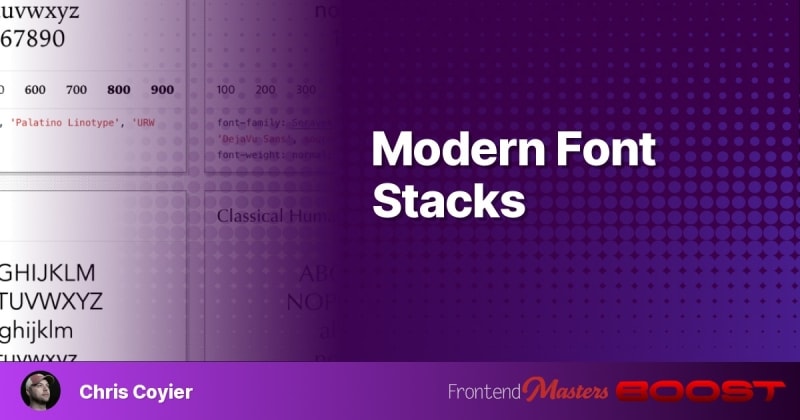
An appreciation for Dan Klammer's Modern Font Stacks project and the ability to use system fonts instead of custom ones. Highlighting the Geometric Humanist stack and how it renders across different operating systems.